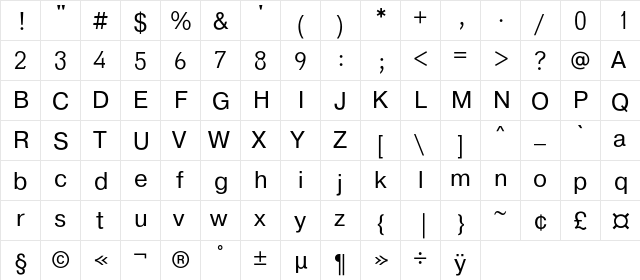
Kolheti Regular
Design Context for Kolheti Typeface
Kolheti takes a measured approach to typography — its balanced proportions and neutral character make it a reliable workhorse for both digital and print work.